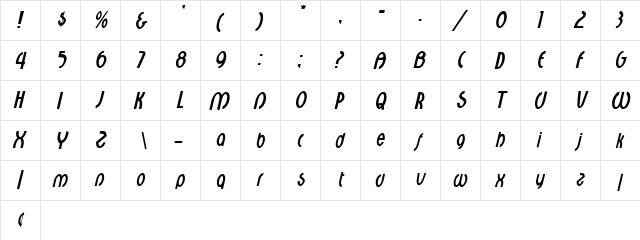
Ouzel Oblique
Design Context for Ouzel Typeface
Ouzel takes a measured approach to typography — its balanced proportions and neutral character make it a reliable workhorse for both digital and print work. Its italic angle brings a sense of urgency and motion to the letterforms.
Pro Tip: Use Ouzel for emphasis, pull quotes, and subheadings where its slanted energy can add rhythm to the layout.